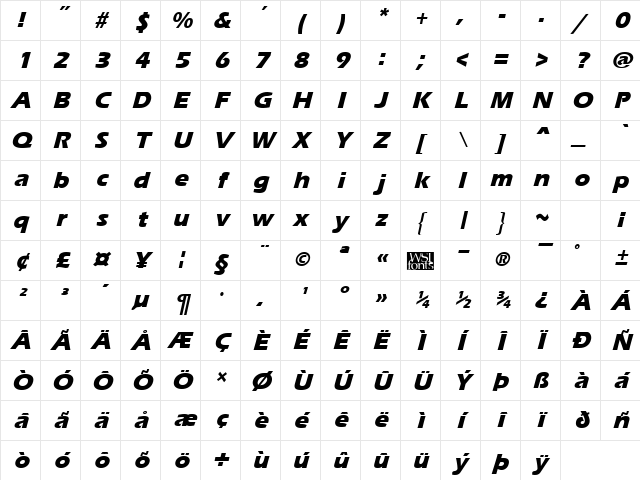
ErgoeMildExtrabold Italic
Design Context for ErgoeMildExtrabold
ErgoeMildExtrabold is a composed and adaptable typeface that performs quietly and consistently across a wide range of design contexts. The slanted form adds forward momentum and visual energy. Its bold stroke weight gives it real presence on the page.
Pro Tip: Use ErgoeMildExtrabold for emphasis, pull quotes, and subheadings where its slanted energy can add rhythm to the layout.